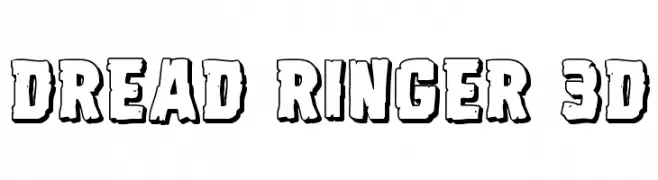
A bold, rugged font with distressed edges and an expanded width.
A bold, 3D cartoonish font with rugged edges and a playful style.
A bold, rugged font with a distressed, staggered appearance.
A bold, italic font with a rugged and dynamic style.
A bold, rugged font with jagged edges and a distressed, hand-cut appearance.
A bold, distressed, condensed font with an edgy, urban style.
A bold, distressed font with a rugged, grunge-like appearance.
A bold, italicized font with an expanded width and rugged, dynamic style.
A bold, condensed, and italicized font with a rugged, distressed style.
A bold, distressed decorative font with rugged, irregular edges.